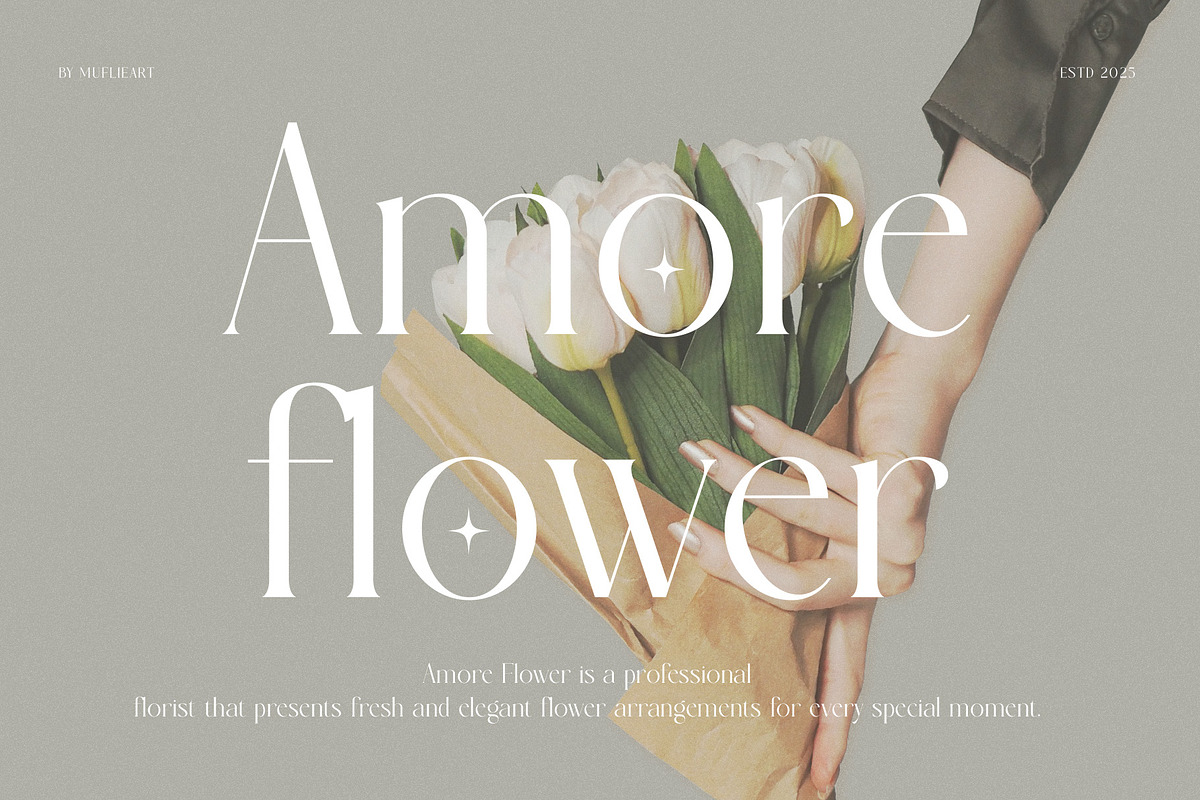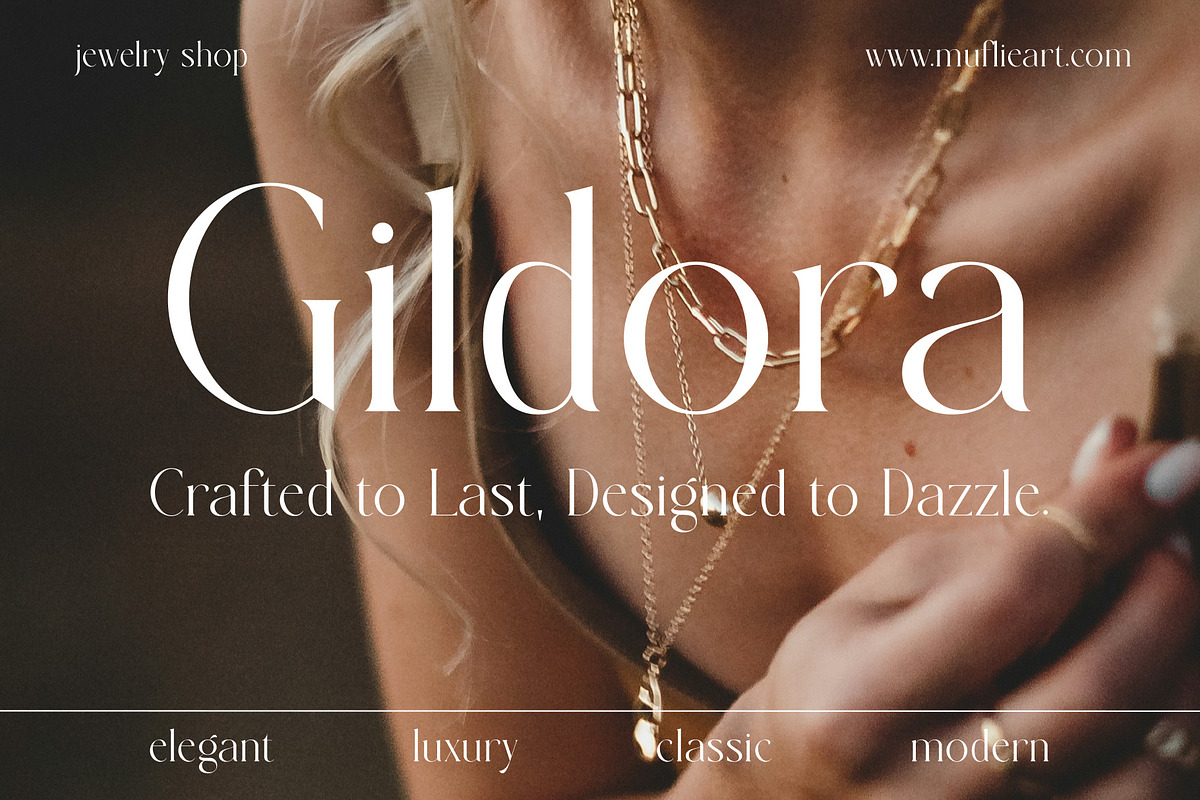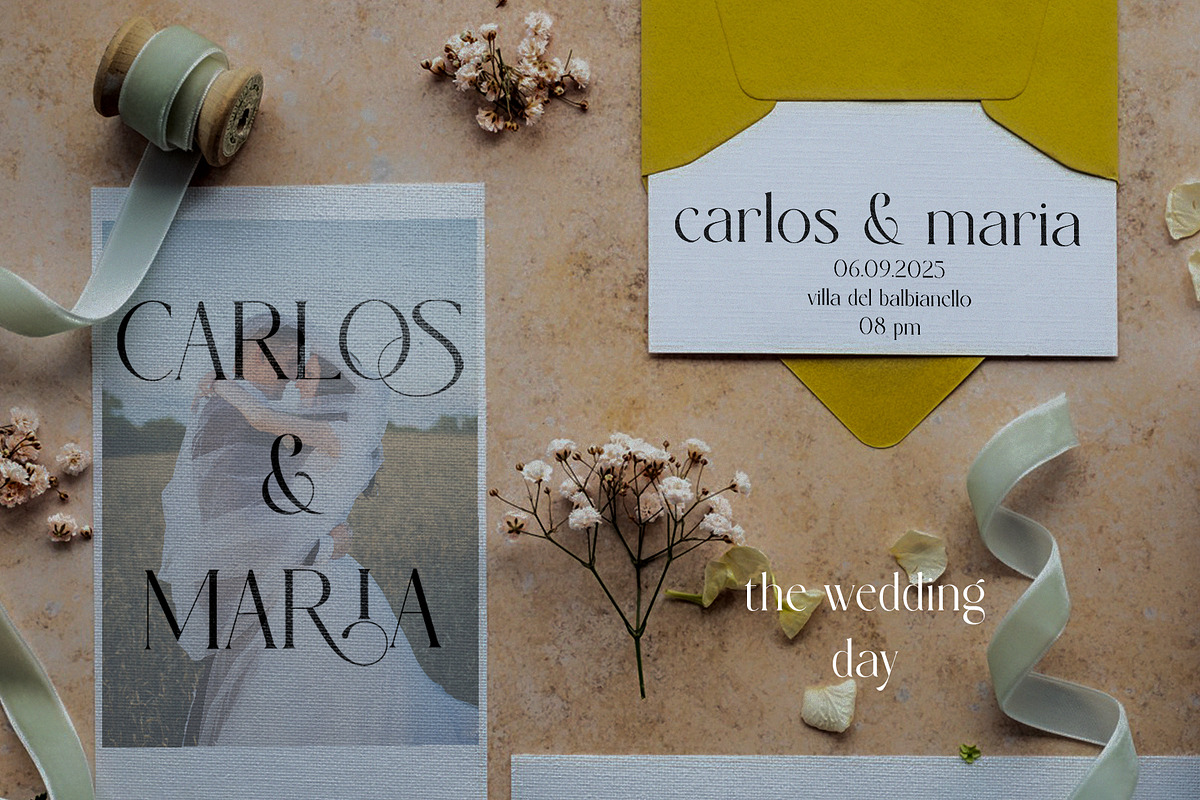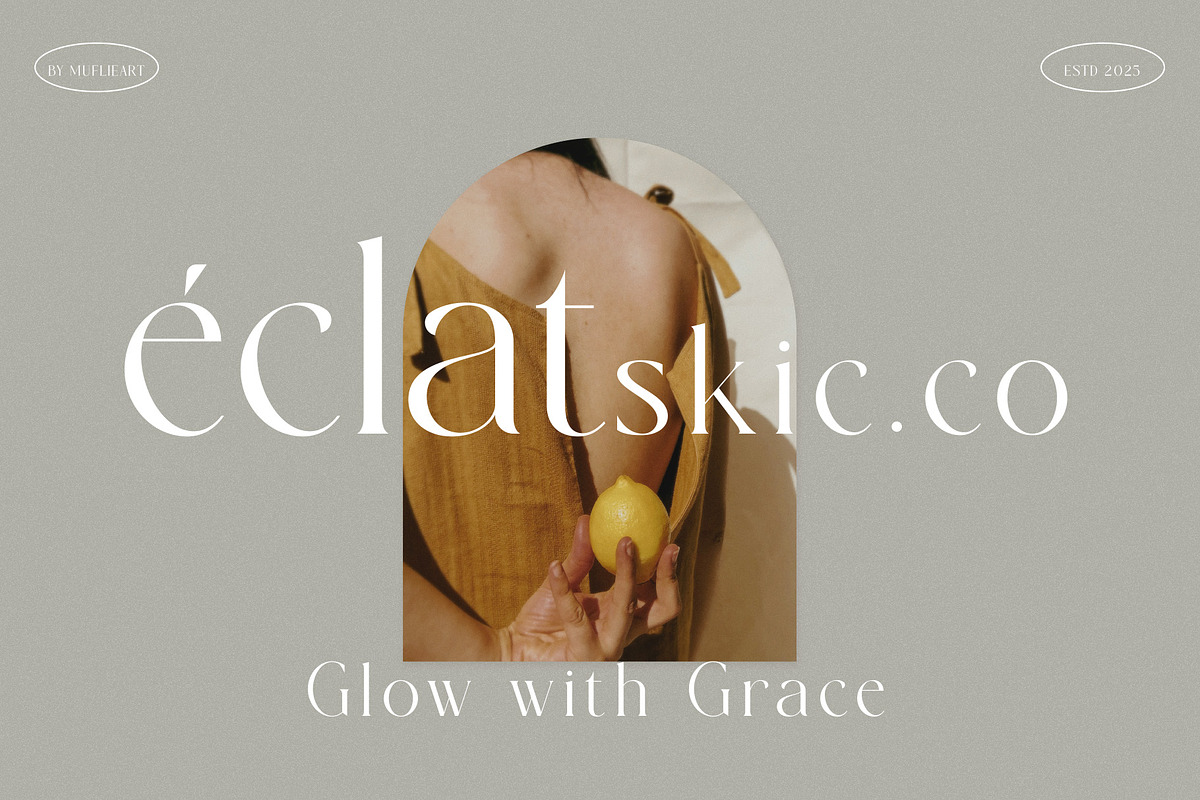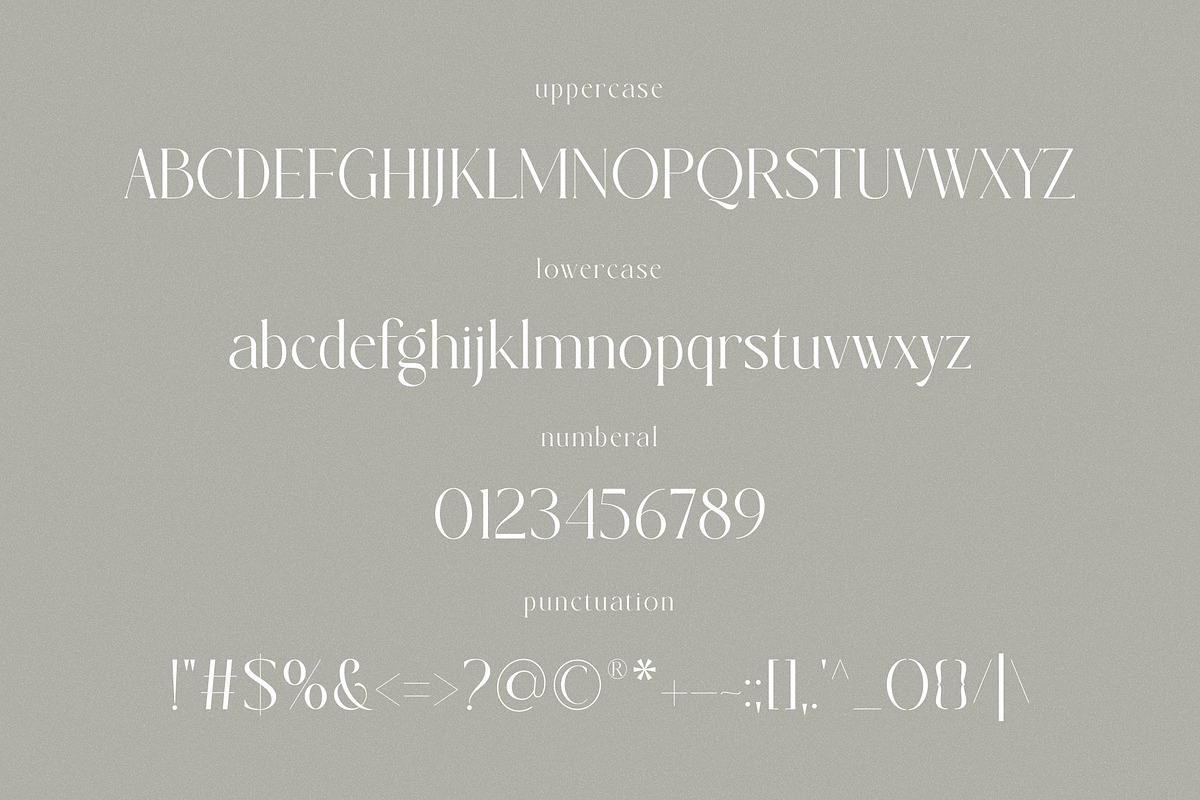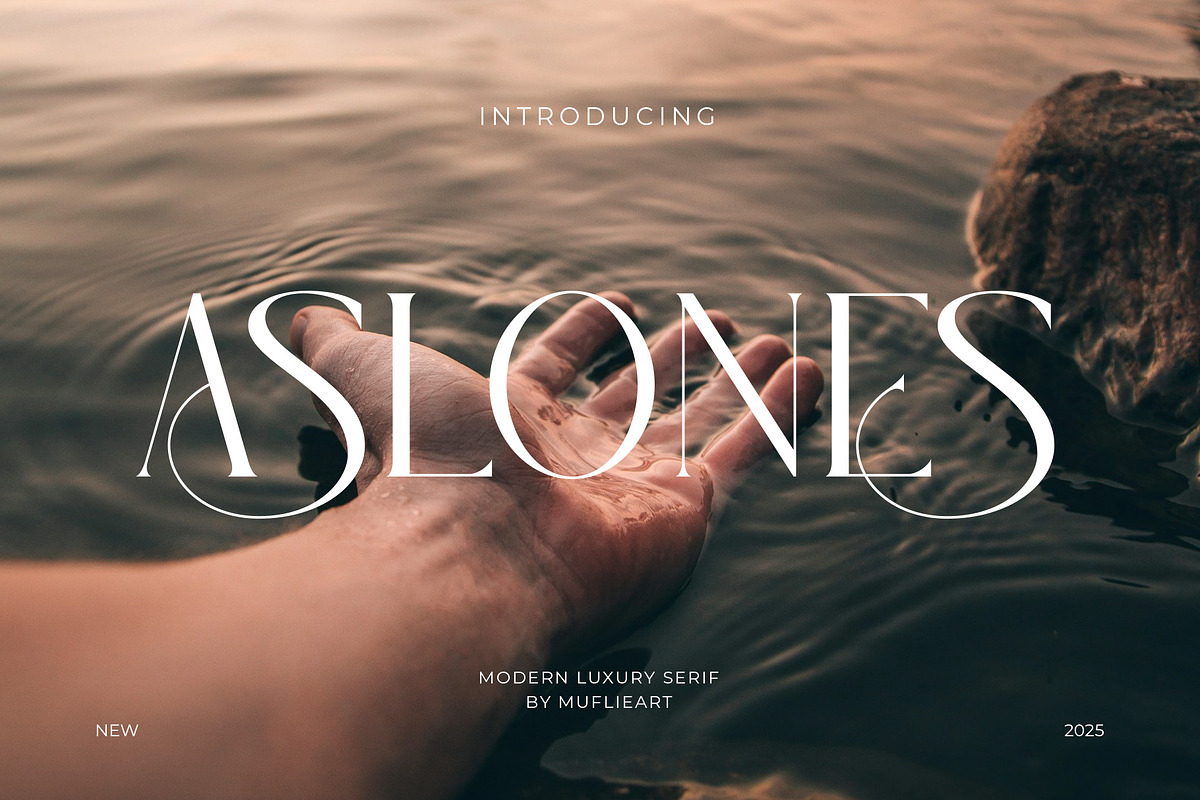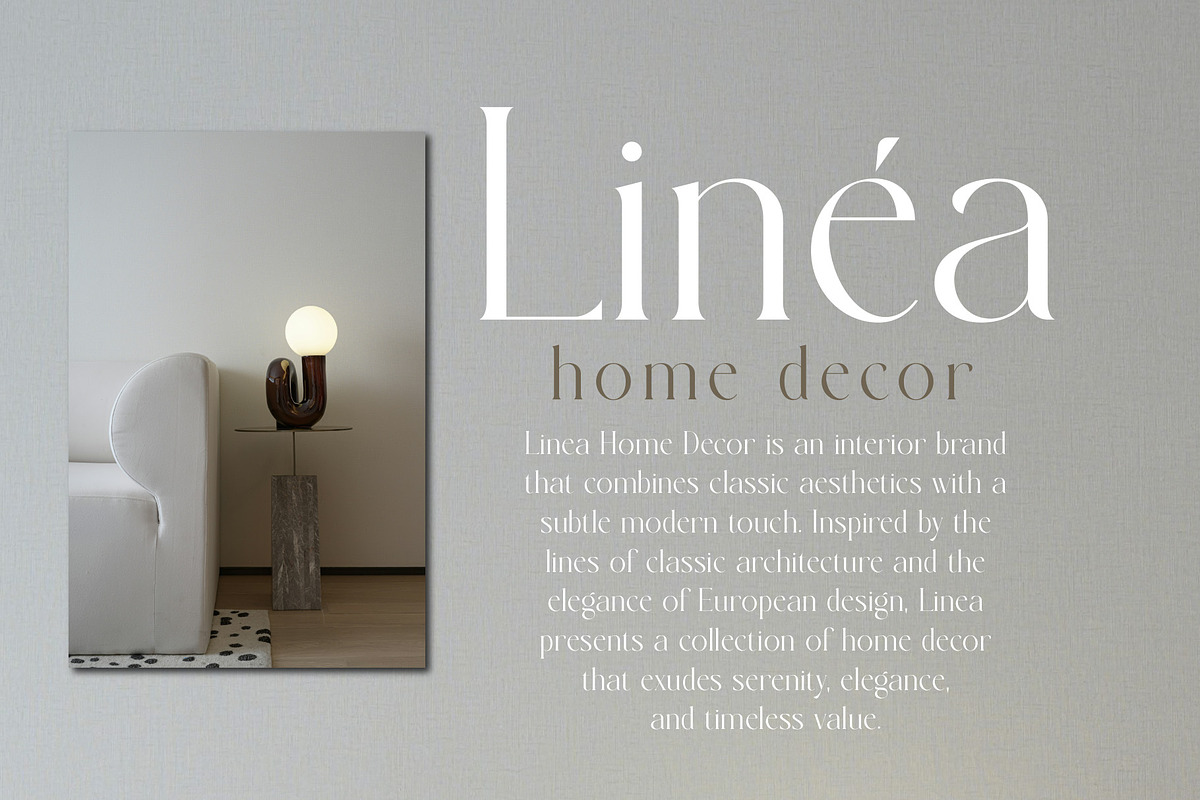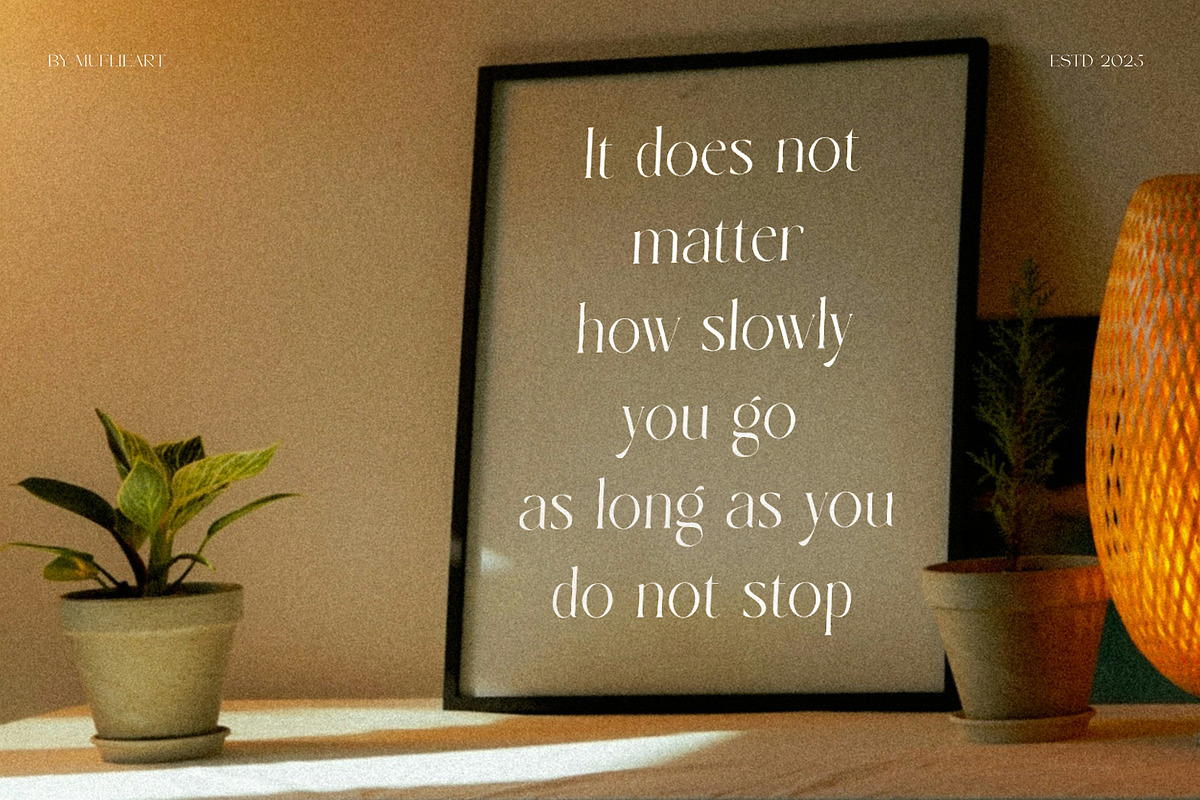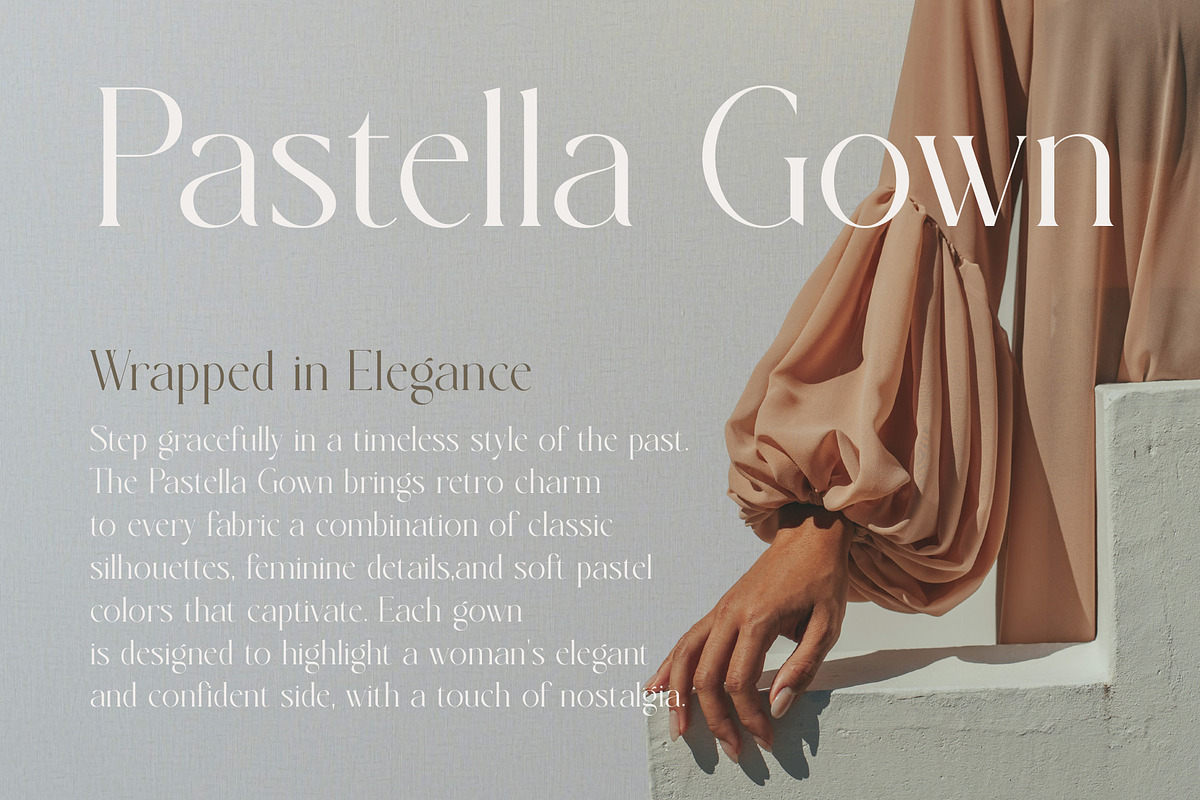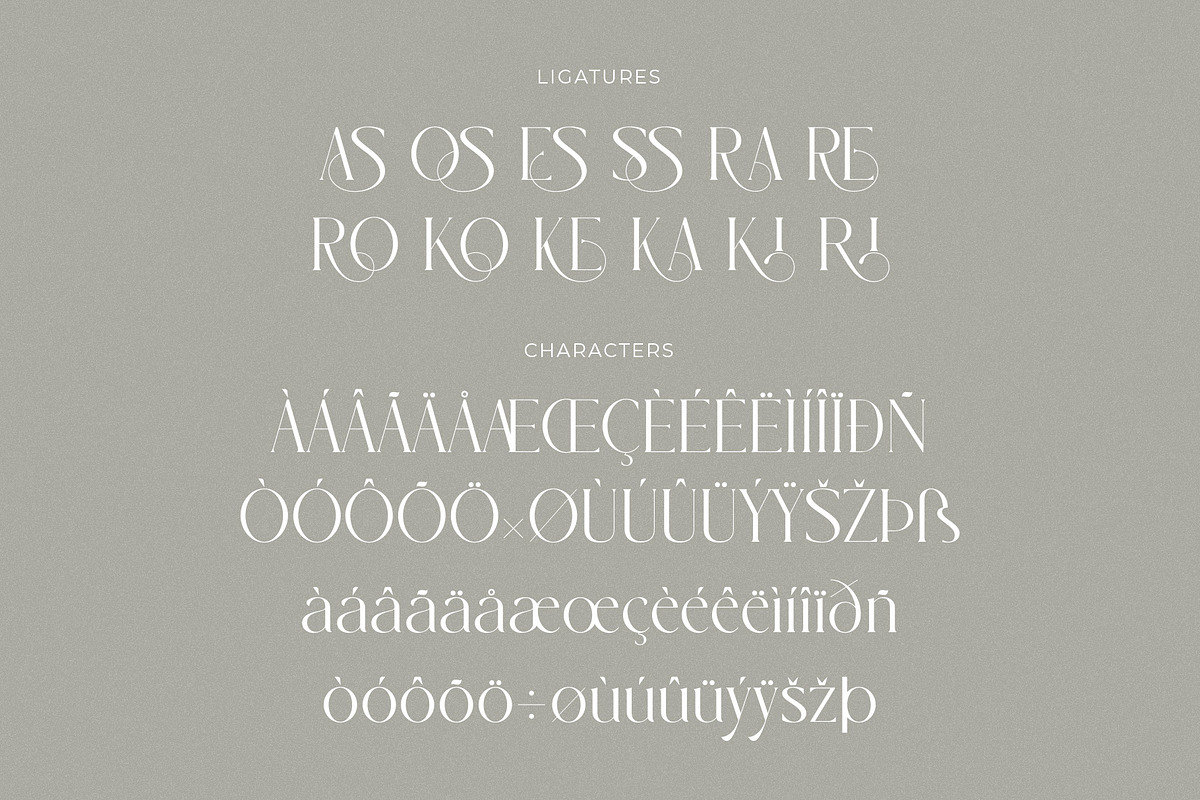
Aslones | Modern Luxury Serif
Introducing Aslones the elegant, beautiful, and modern Serif. With its modern and minimalist look, Aslones brings a luxurious, classy, and clean style to your projects such as websites, modern logos, brand identities, social media quotes, wedding stationery, magazines, and more!
Aslones features unique and classy capital letters A to Z and also comes with unique alternates and ligatures making Aslones a beautiful font that can be customized for various projects and jobs you want.
Aslones is perfect for: logos, brands, wedding invitations, business cards, greeting cards, posters, magazines, social media, agenda prints, and websites.
FEATURE:
- Uppercase and lowercase letters
- Multilingual Characters
- Alternative styles and ligatures (on some fonts)